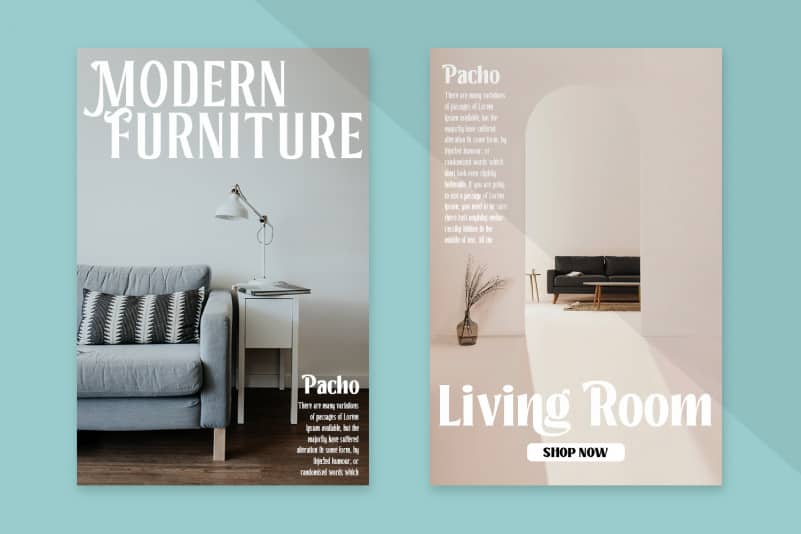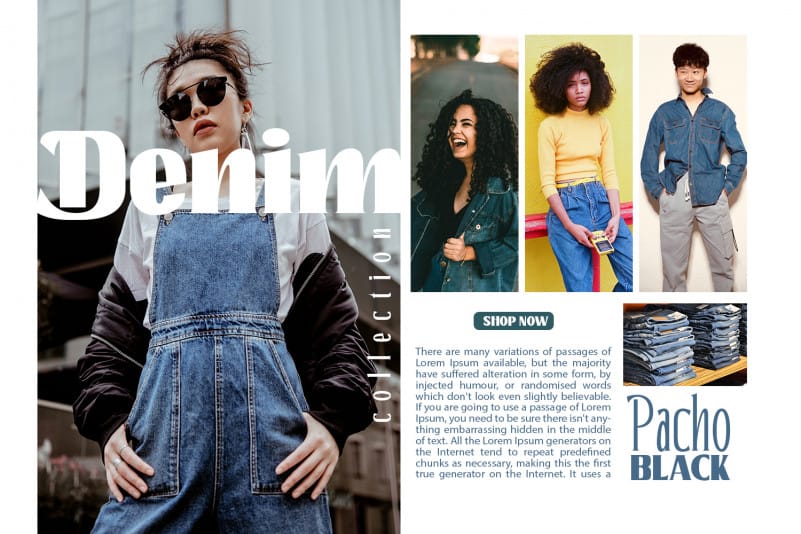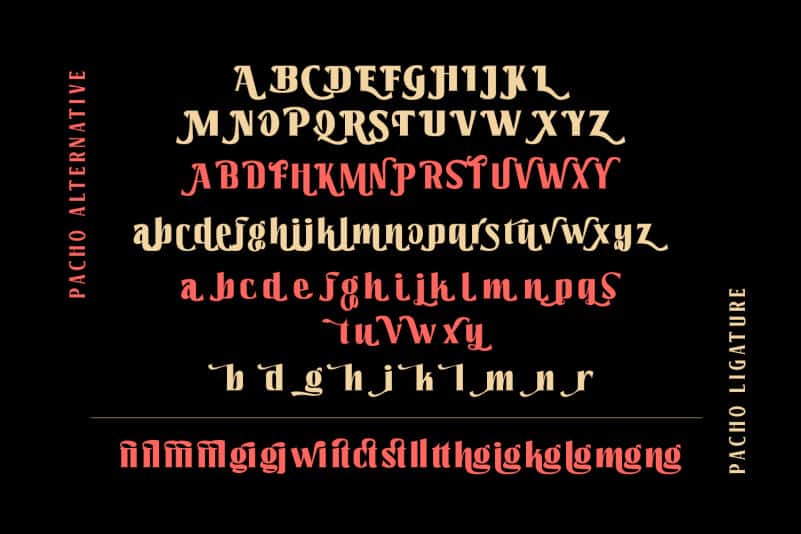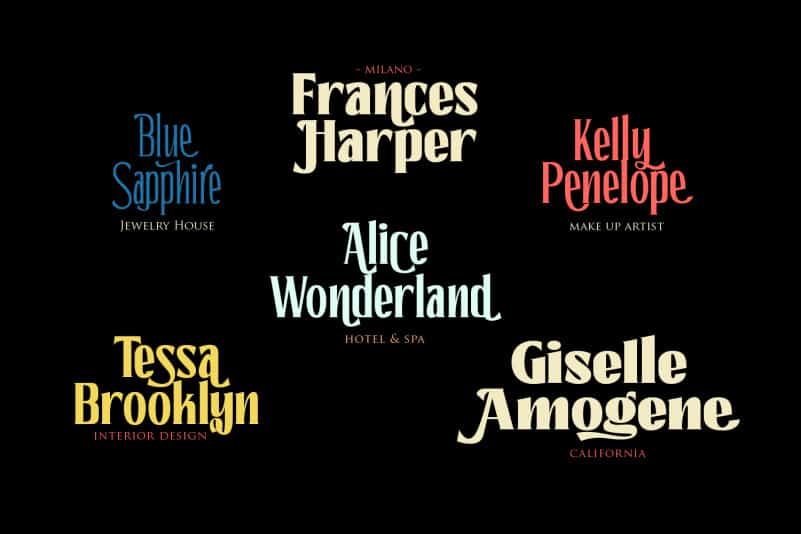
Introducing Pacho Serif Font is a brand new serif family with much special alternative glyphs and ligatures comes with 9 variable weight to get more stunning.
Use this font family for any branding, product packaging, invitation, quotes, t-shirt, label, poster, logo etc.